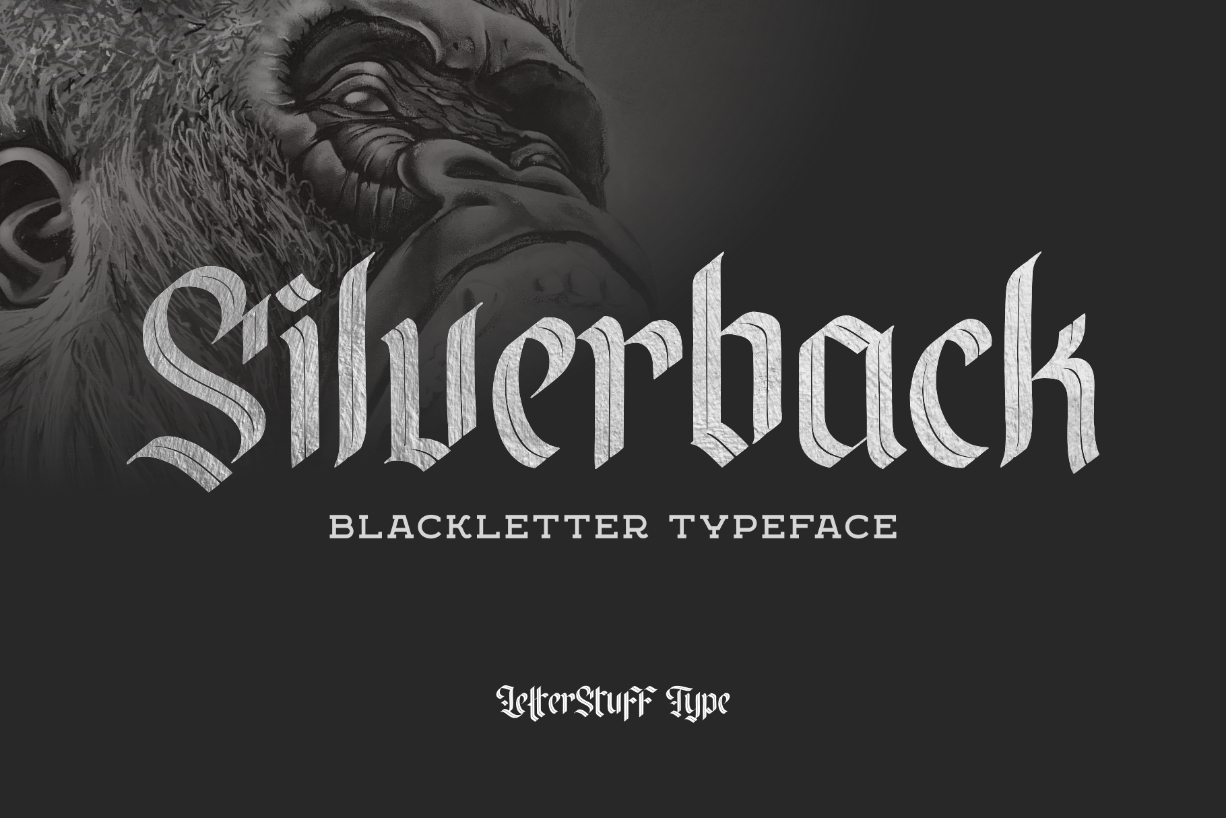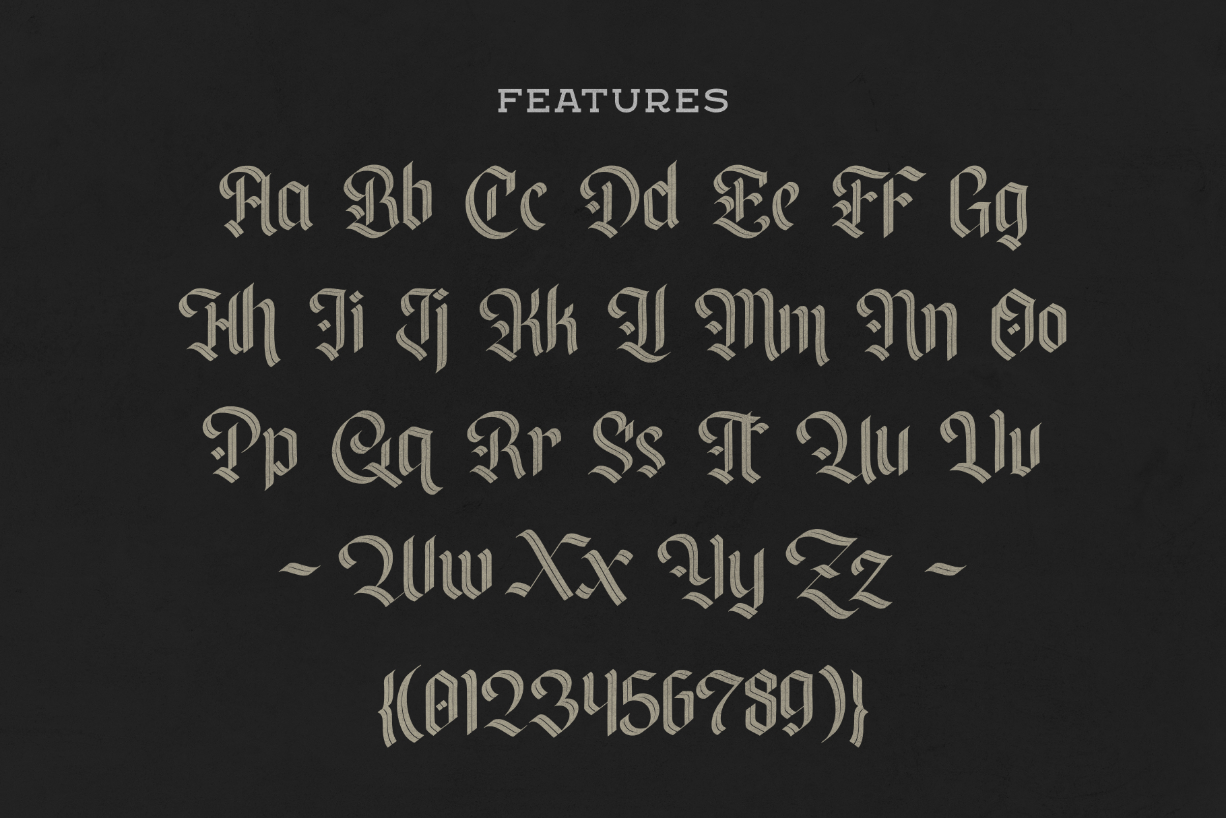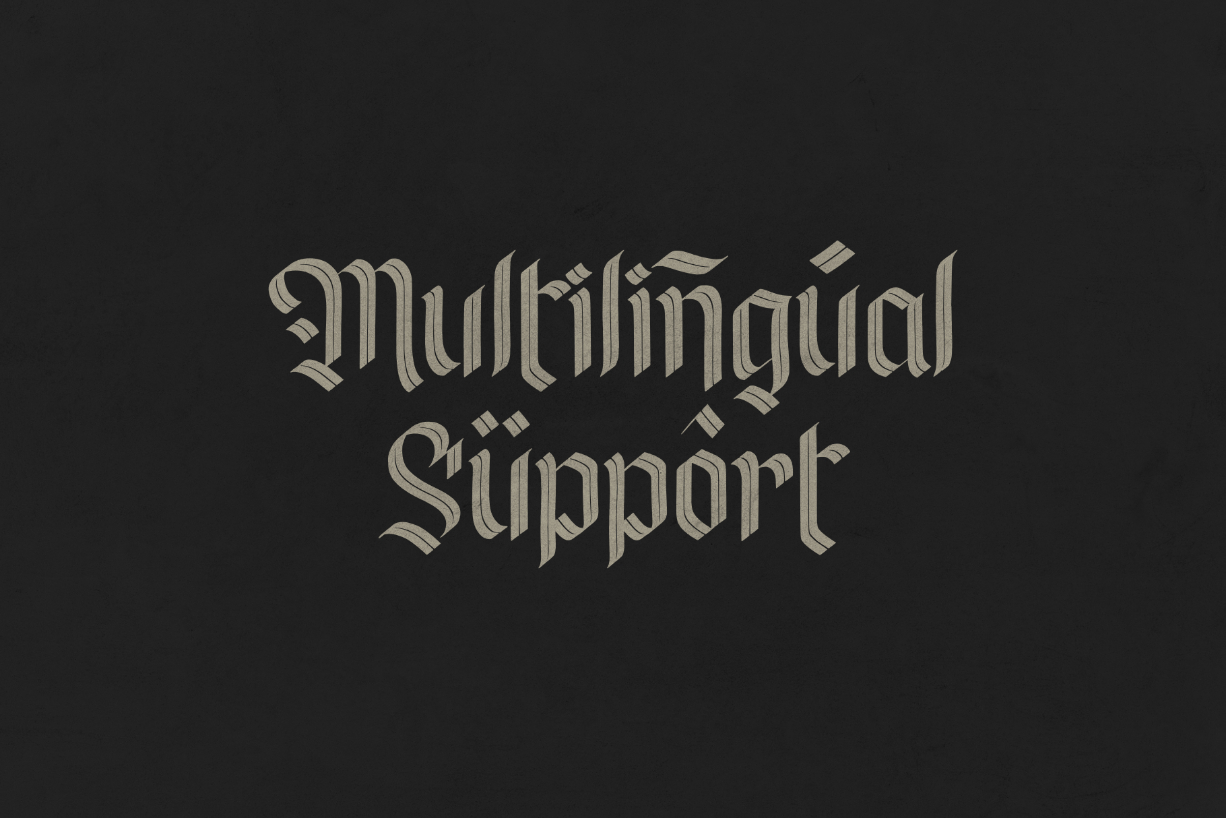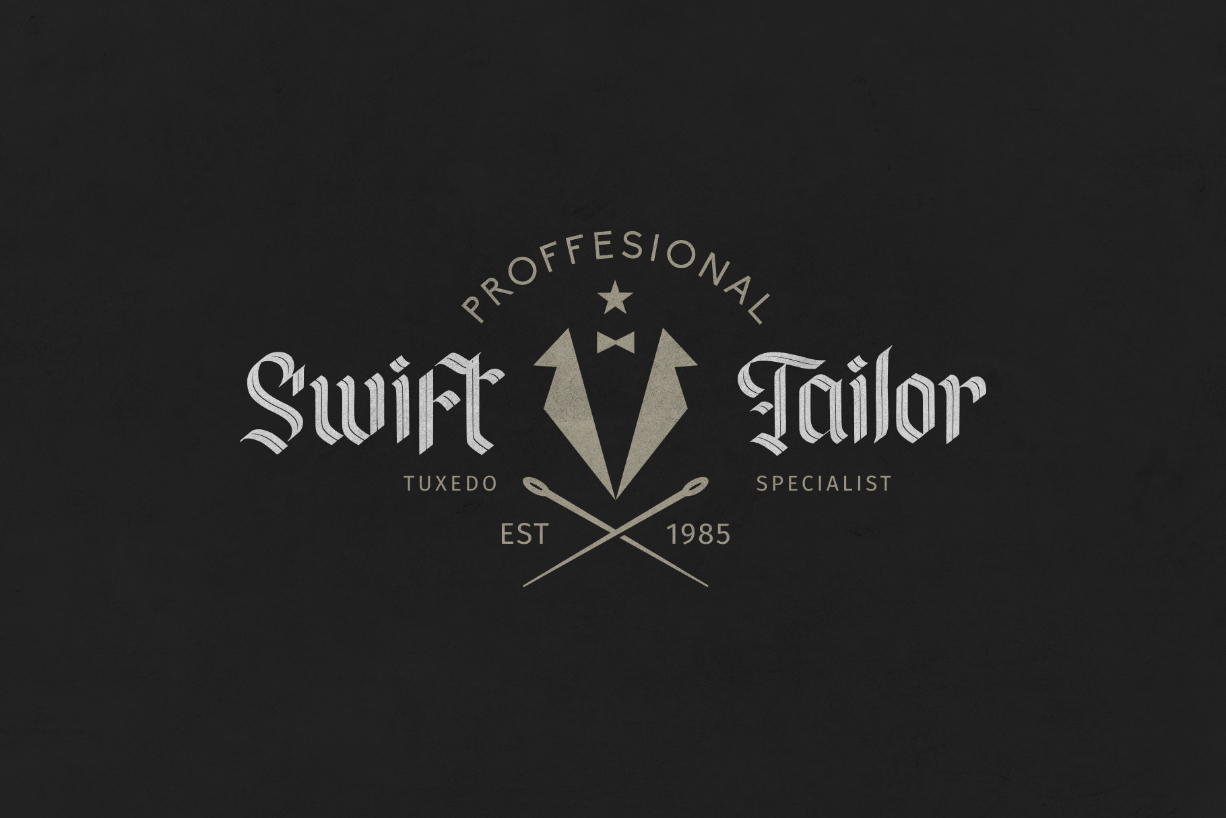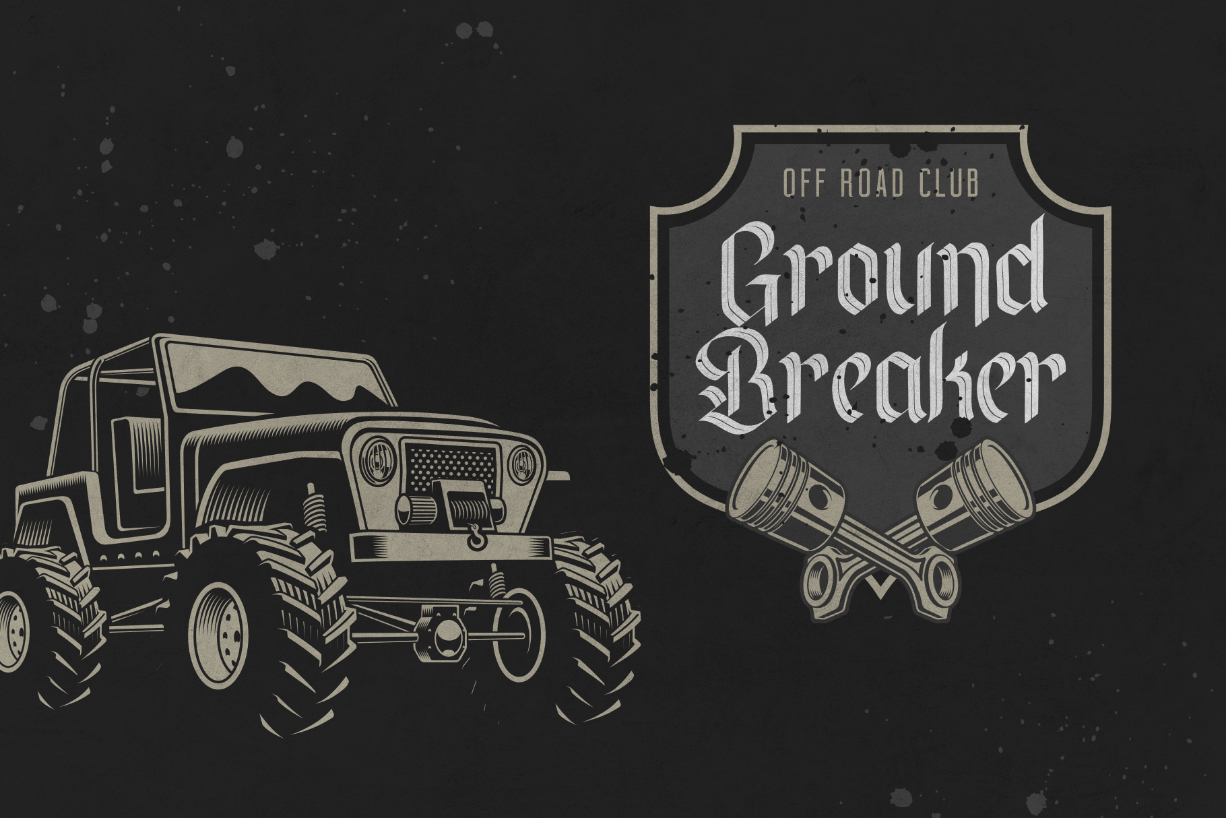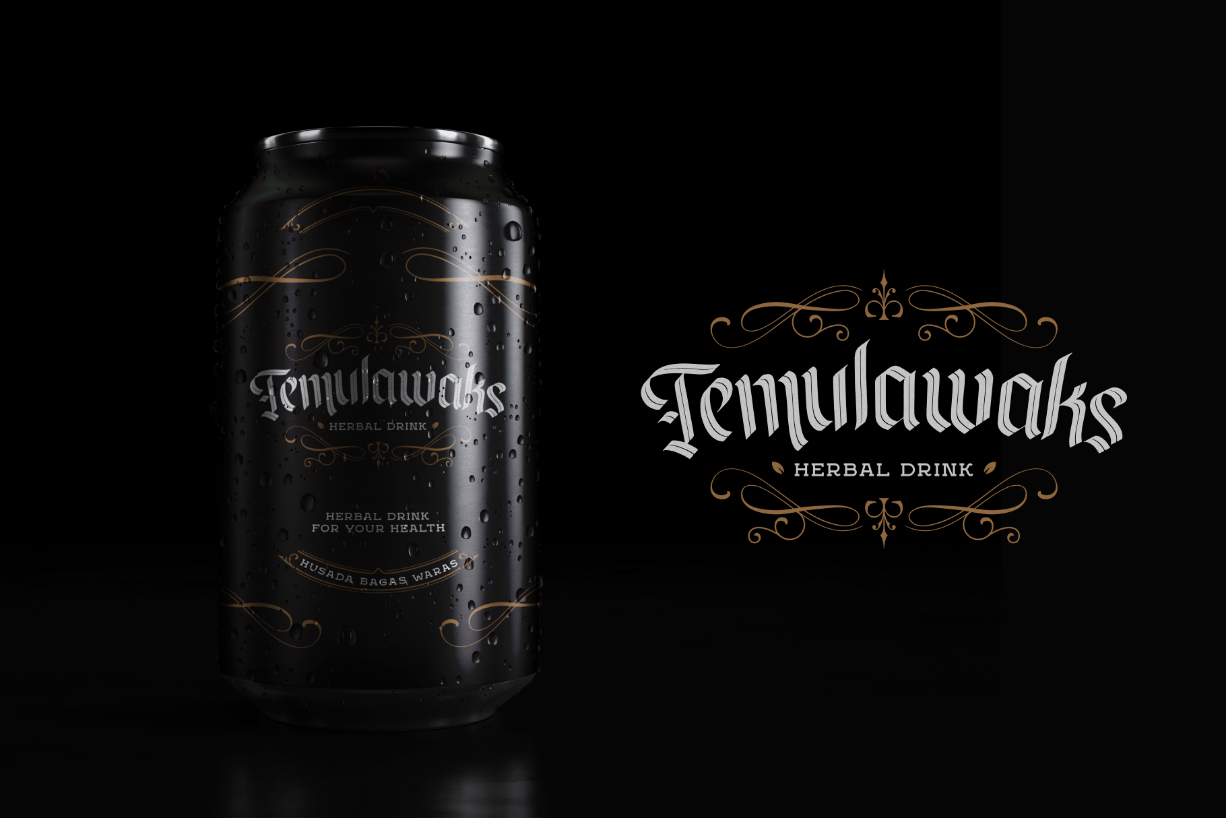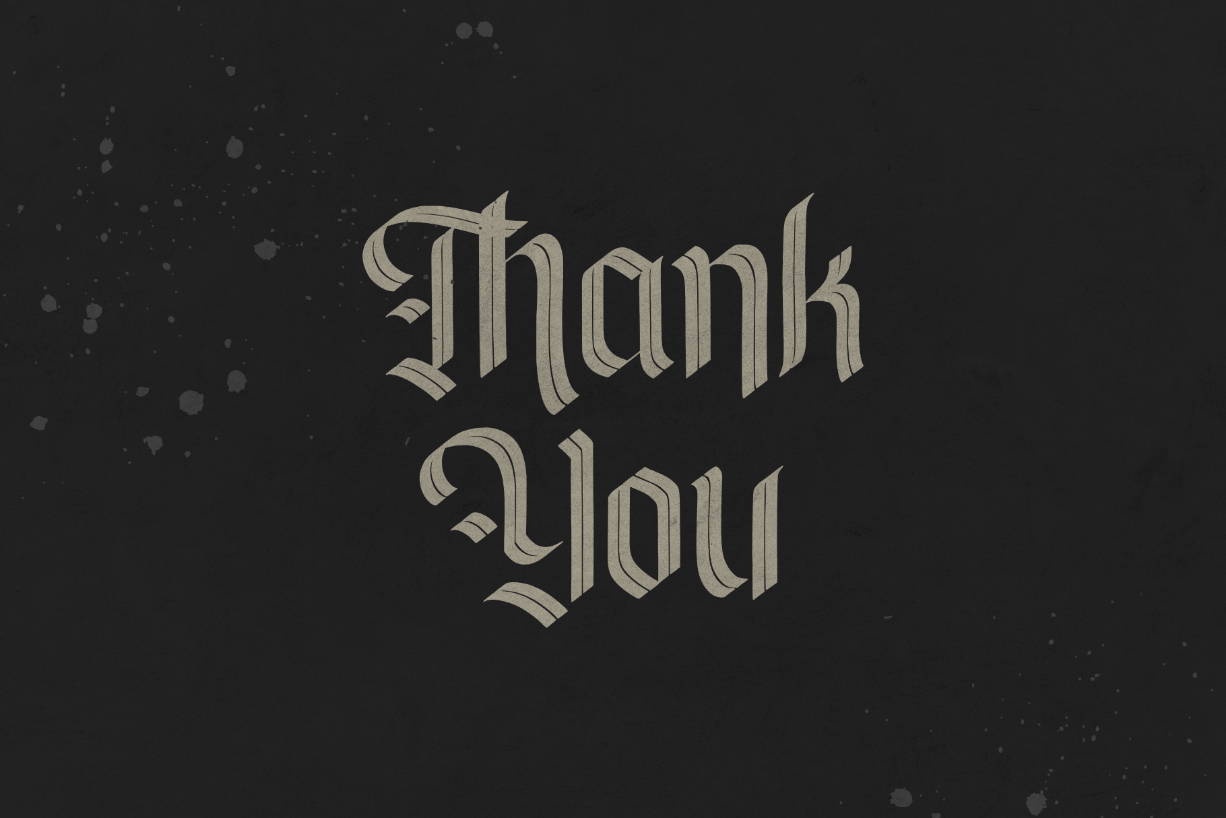
Silverback Font
About Silverback Font
Silverback is an elegant and distinct blackletter font. This font is neatly crafted and highly detailed. Whatever the topic, this font will be a wonderful asset to your font library, as it has the potential to enhance any creation.